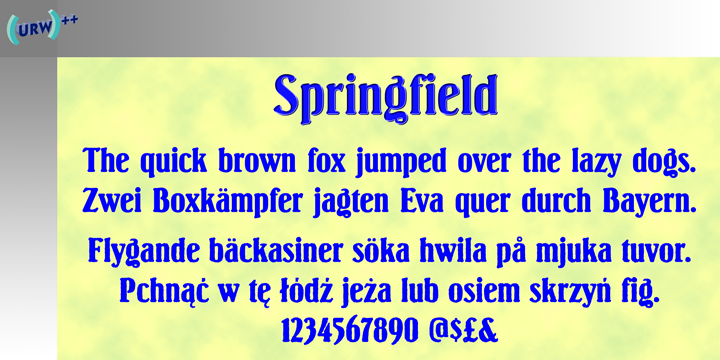
Springfield Font is perfect for small-town business branding, Americana-themed restaurants, Main Street shop signage, hometown festival posters, community event materials, local newspaper headers, hometown pride merchandise, classic diner menus, neighborhood barbershop signs, and heartland tourism campaigns.
What makes Springfield Font so exciting is its warm embodiment of American small-town charm and heartland values through friendly letterforms that capture the welcoming spirit and community pride that defines Main Street America and hometown traditions. The font's design philosophy celebrates the authentic character and neighborly warmth found in America's small towns, featuring approachable curves, honest proportions, and wholesome details that mirror the red brick storefronts of downtown squares, the painted signs of family businesses, and the genuine hospitality that makes small-town America such a cherished part of the national identity. Each character radiates the trustworthy reliability and community spirit that forms the backbone of American values, creating a visual language that instantly communicates authenticity, local pride, and the timeless appeal of hometown traditions that bring neighbors together and preserve the best of American culture.
The Springfield Font family includes hometown variations: Regular, Bold, Light, Medium, Condensed, Extended, Italic, Classic, and Hometown styles. Each variation maintains the font's characteristic small-town authenticity while offering different levels of community expression and Americana detail for various local business and heartland design applications.
When searching for a typeface that embodies the essence of American small-town charm and community spirit, Springfield Font Free Download represents the perfect fusion of hometown authenticity with typographic warmth that elevates any project to new levels of local credibility and American heartland appeal.
The warmly crafted letterforms of Springfield Font demonstrate superior attention to community design principles, featuring hometown proportions, friendly spacing, and welcoming curves that ensure optimal readability while maintaining the font's distinctive small-town character. Its versatile design adapts beautifully from intimate business cards to grand Main Street banners.
Professional designers working on local businesses, community organizations, and Americana brands particularly value the font's ability to convey hometown authenticity, community pride, and American values. The typeface works exceptionally well for projects targeting local communities, patriotic audiences, and anyone seeking to project authentic positioning and small-town excellence.
The comprehensive OpenType features of Springfield Font include hometown alternates, community ligatures, and specialized Americana characters that enable designers to create authentic small-town typography while maintaining the font's distinctive friendly character throughout all design elements and hometown applications.